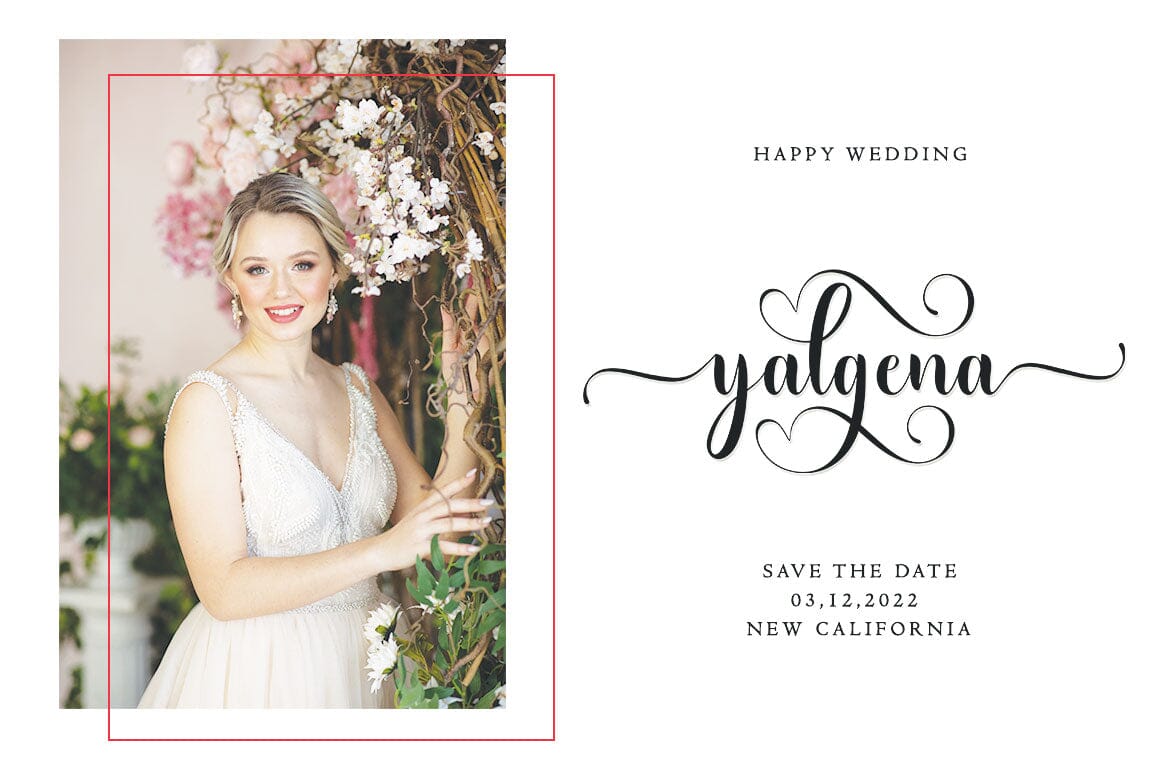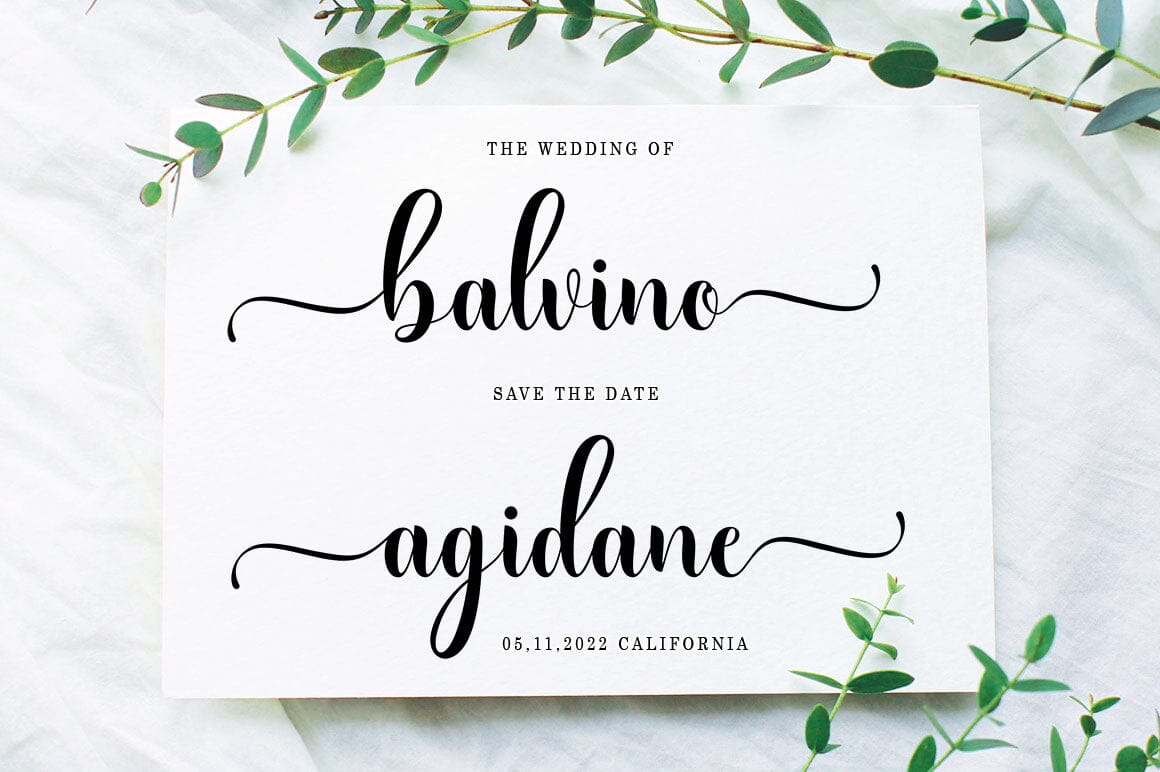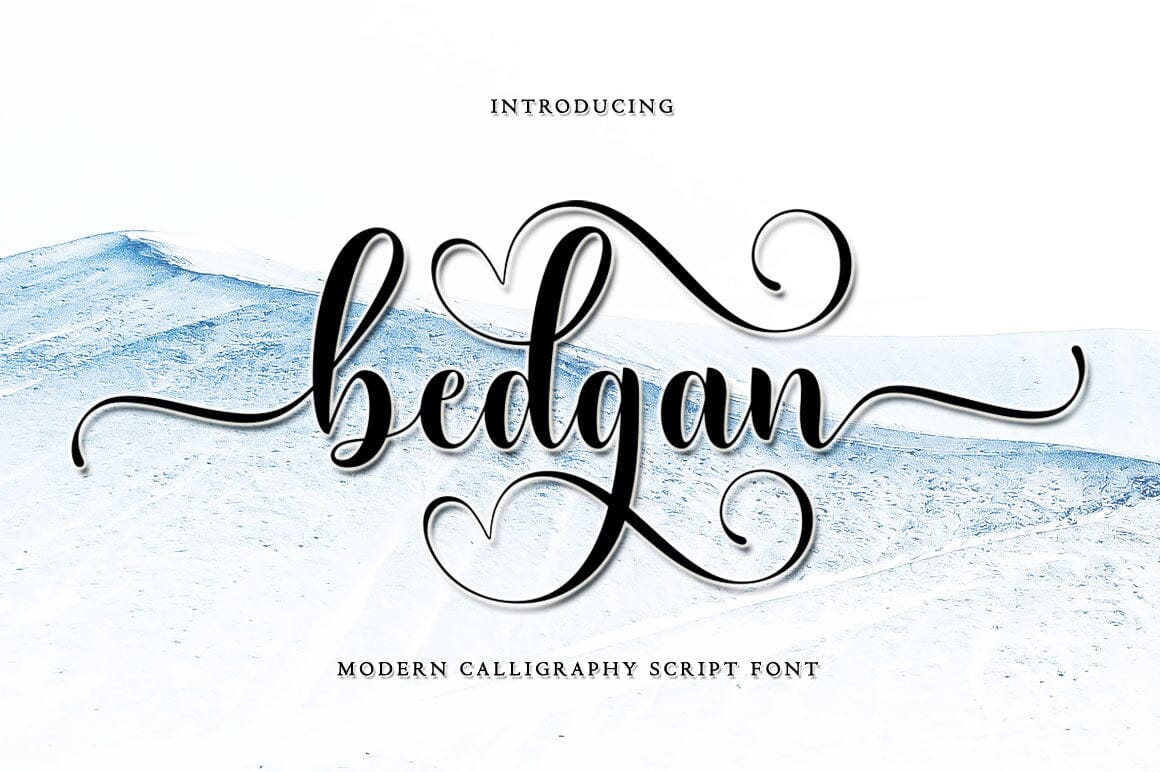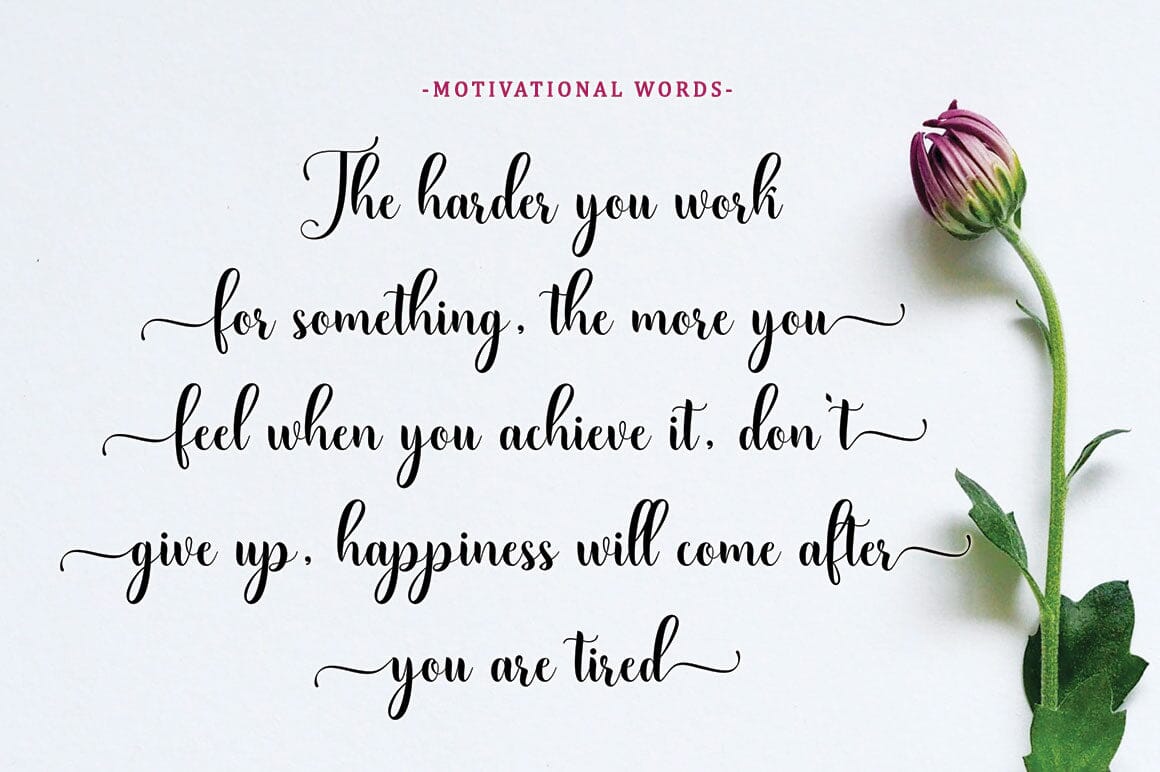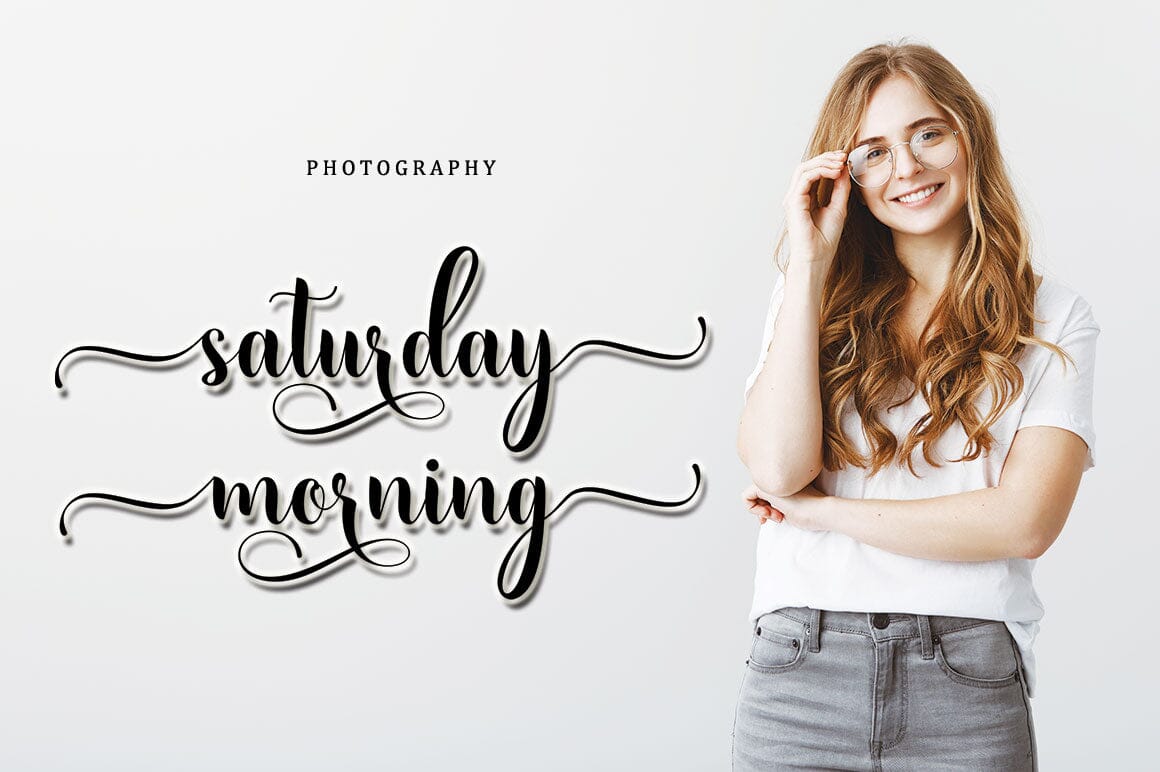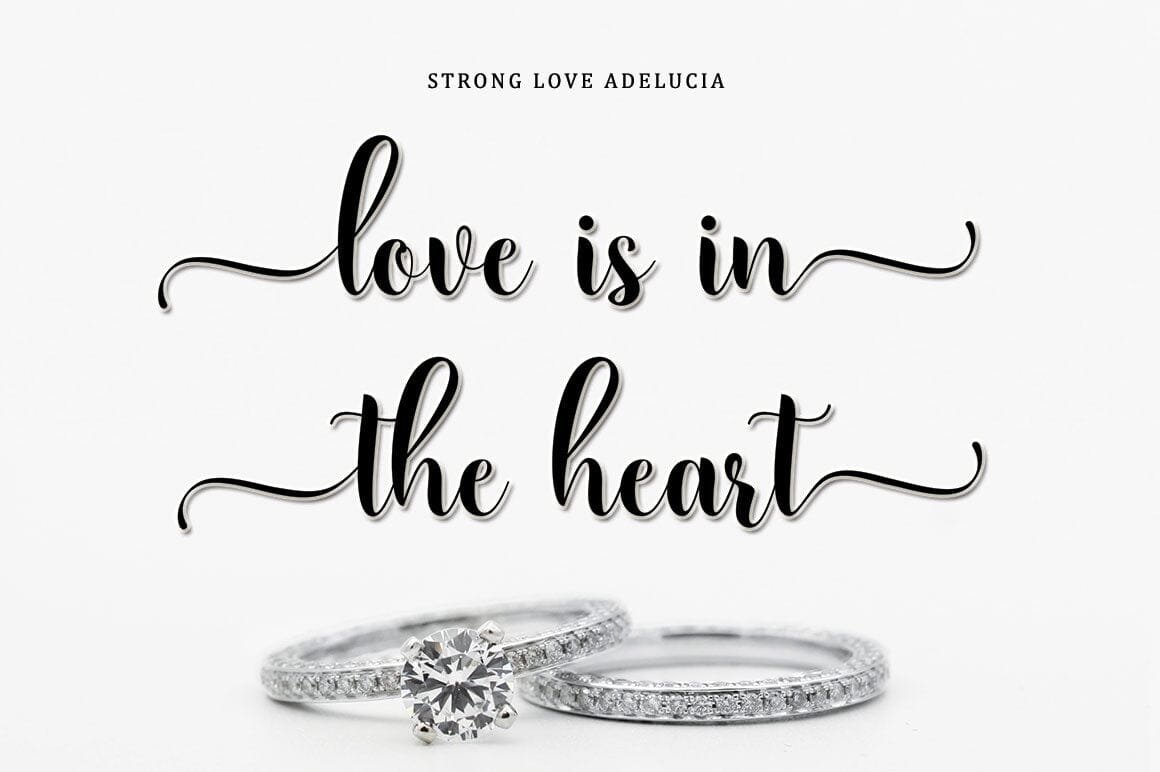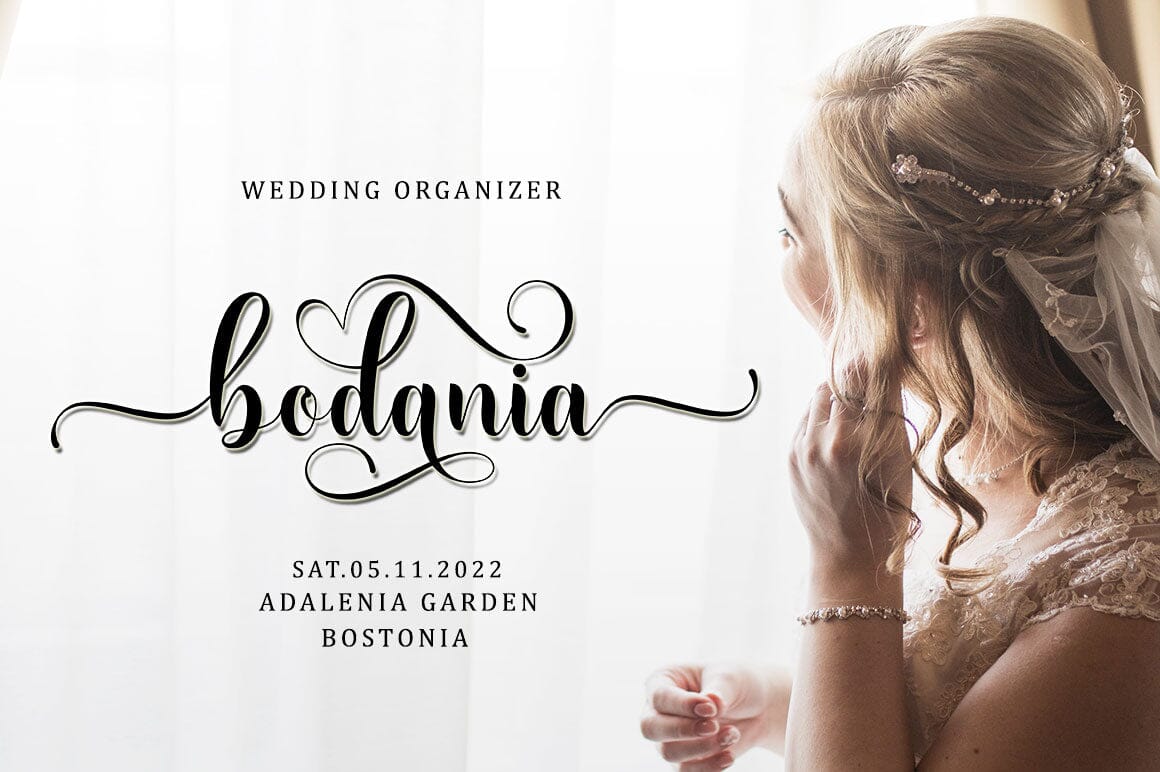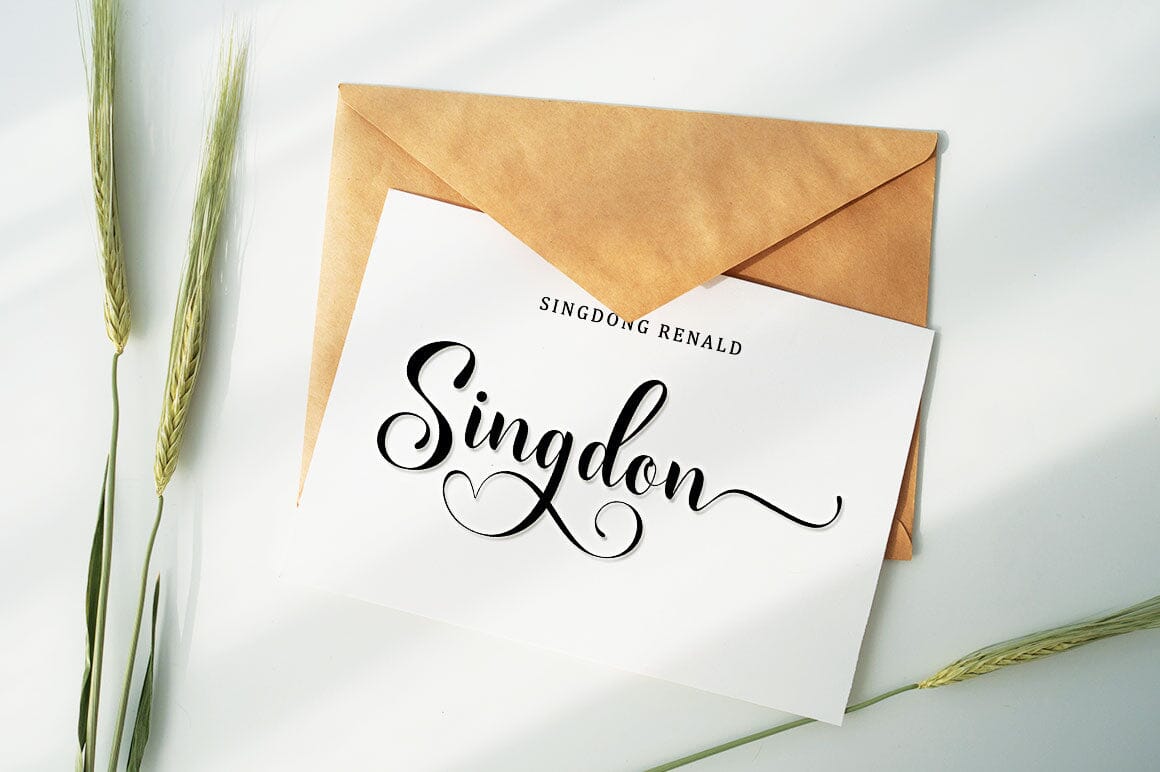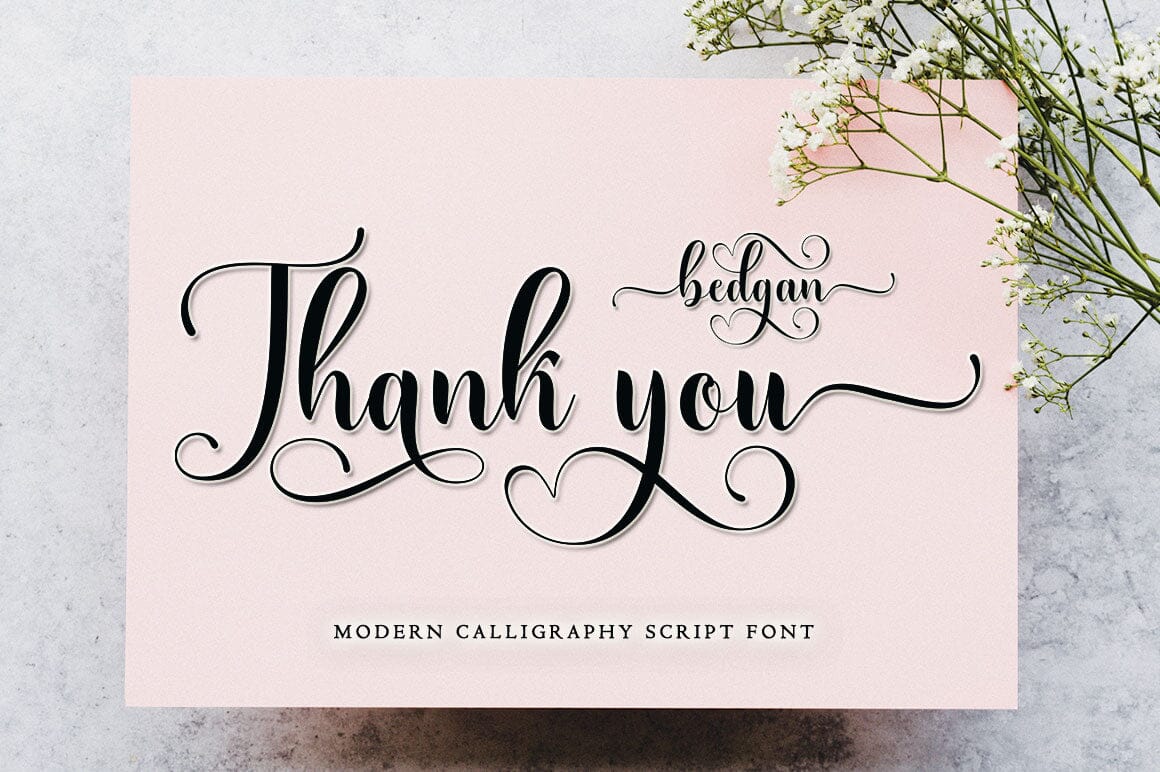
Bedgan
About Bedgan
Bedgan is a very cute, elegant and unique handwritten font. Expertly designed to be a true favourite, this font has the potential to take your creative ideas to the highest level! This font is PUA encoded which means you can access all the glyphs and sweeps easily! Bedgan is attractive because it is sleek, clean, feminine, sensual, glamorous, simple and very easy to read, thanks to its many fancy letter connections. I also offer a decent number of style alternatives for all letters. The classic style is very suitable to be applied in various formal forms such as invitations, labels, restaurant menus, logos, fashion, make up, stationery, novels, magazines, books, greeting/wedding cards, packaging, labels or all kinds of advertisements . for your purposes. . . . . . . Contains full set: -Uppercase -Lowercase -Alternative -Ligatures -Punctuation -Number -Multilingual support. need help or have questions let me know. I’m happy to help.